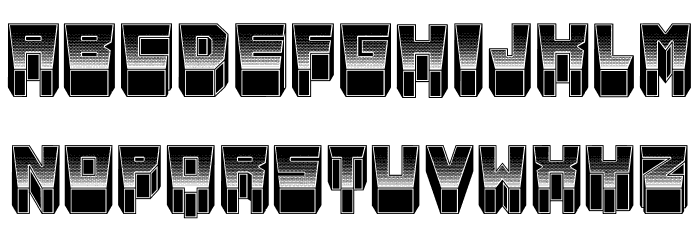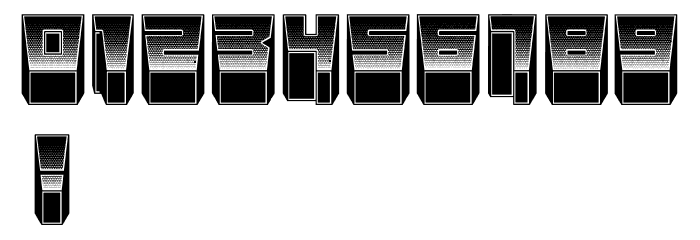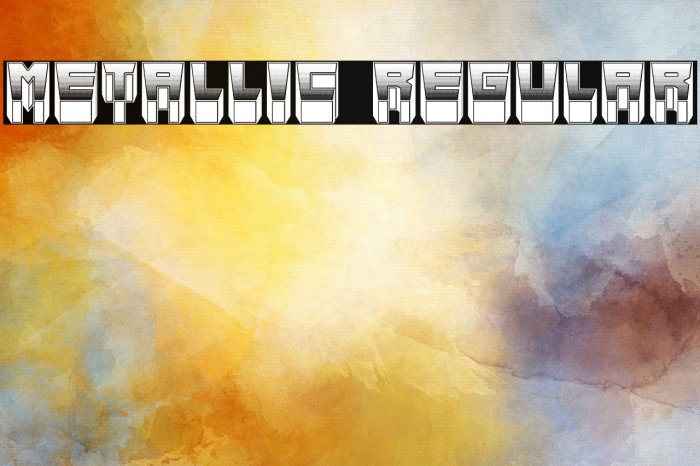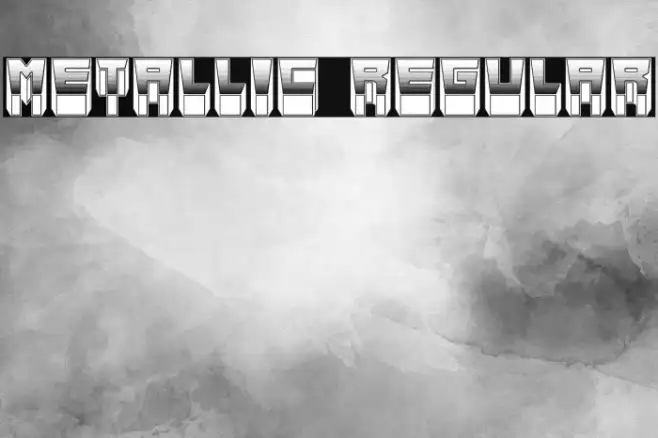
Metallic Regular Font
This font features a bold, three-dimensional design with a metallic appearance. The characters are blocky and robust, with a distinct shadow effect that gives them a sense of depth and weight. The uppercase and lowercase letters maintain a consistent style, emphasizing a futuristic and industrial aesthetic. The numbers and special characters follow the same design principles, ensuring uniformity across all glyphs. The font's unique style makes it stand out, ideal for projects that require a strong visual impact.
A bold, 3D metallic font with a futuristic and industrial look.
- Proposed Projects: Ideal for video game titles, movie posters, technology branding, and any project needing a strong, impactful typeface.